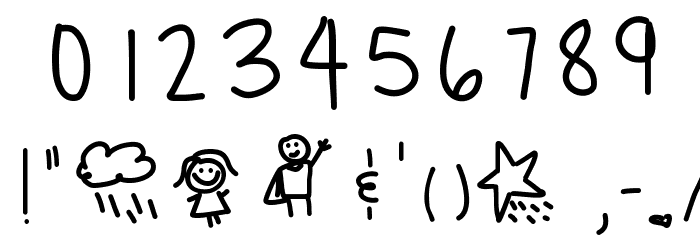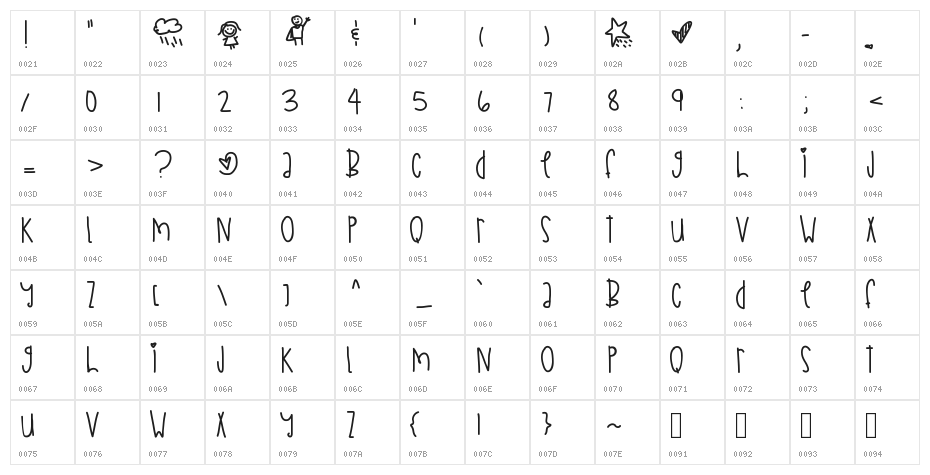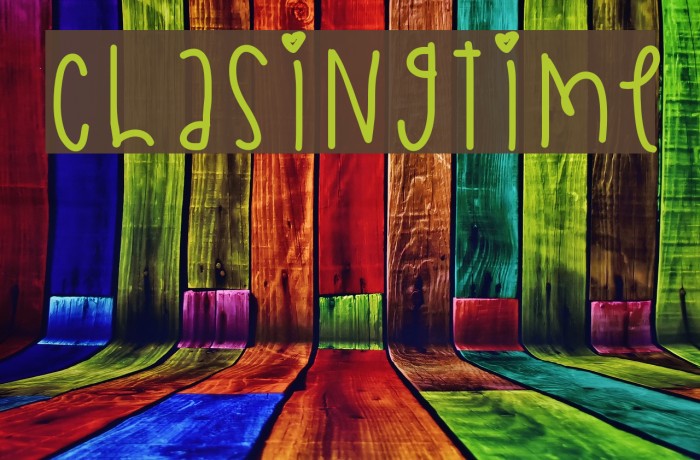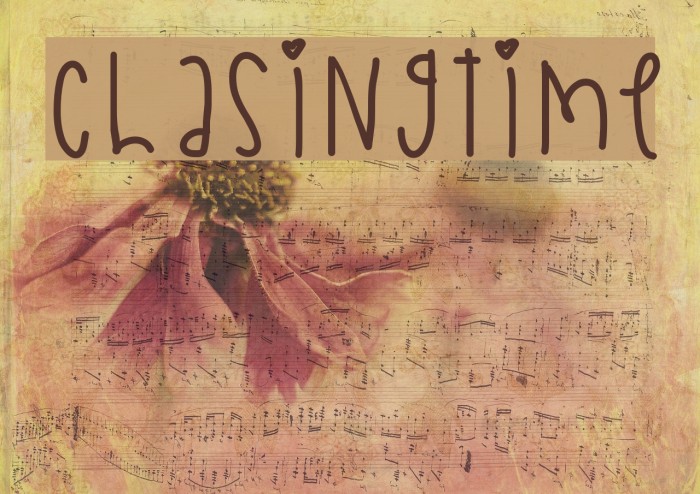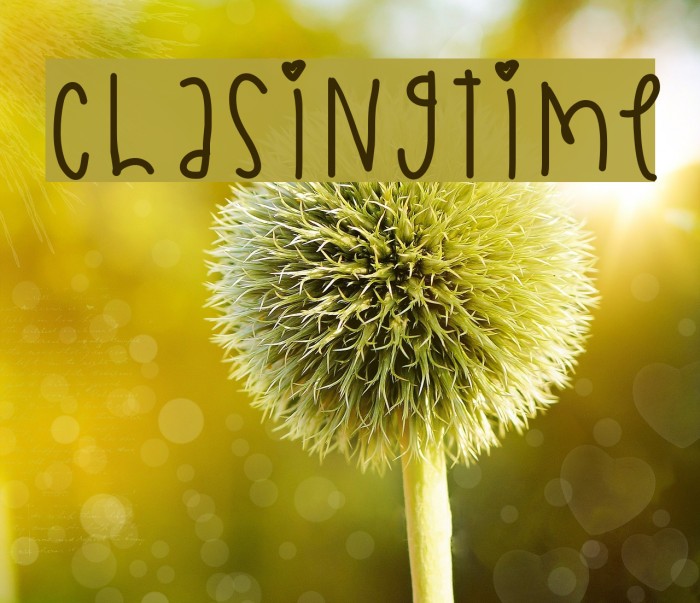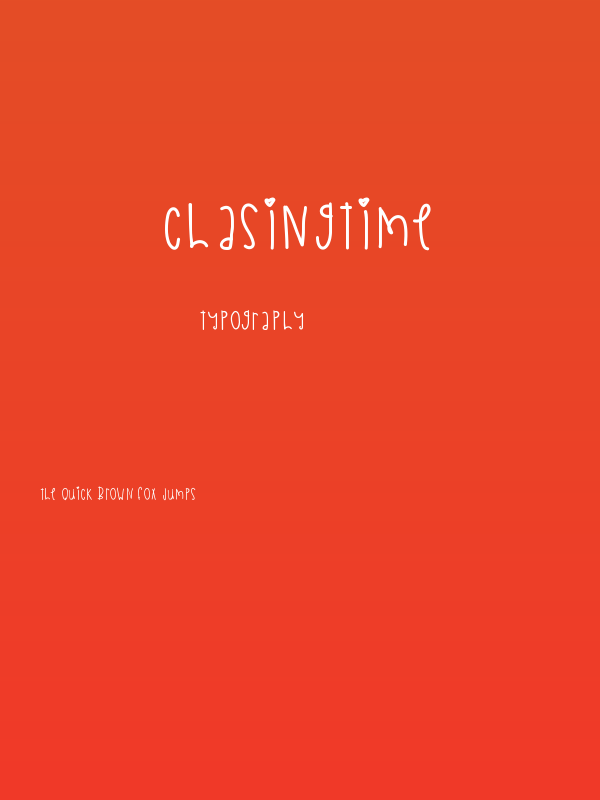
ChasingTime Font
ChasingTime Description
This playful and whimsical font features tall, narrow characters with a hand-drawn appearance. The letters are slightly irregular, adding to the casual and friendly feel. Some characters, like the 'i' and 'j', include charming heart-shaped dots, enhancing its playful nature. The numbers and special characters maintain the same hand-drawn style, making it cohesive across all elements. The font includes delightful doodles, such as a cloud, a girl, and a star, which can be used to add decorative elements to designs. Its unique style makes it ideal for projects that require a personal touch.
| Use Case | Headlines, Decorative elements |
| Proposed Projects | Ideal for children's books, greeting cards, playful branding, and creative social media graphics. |